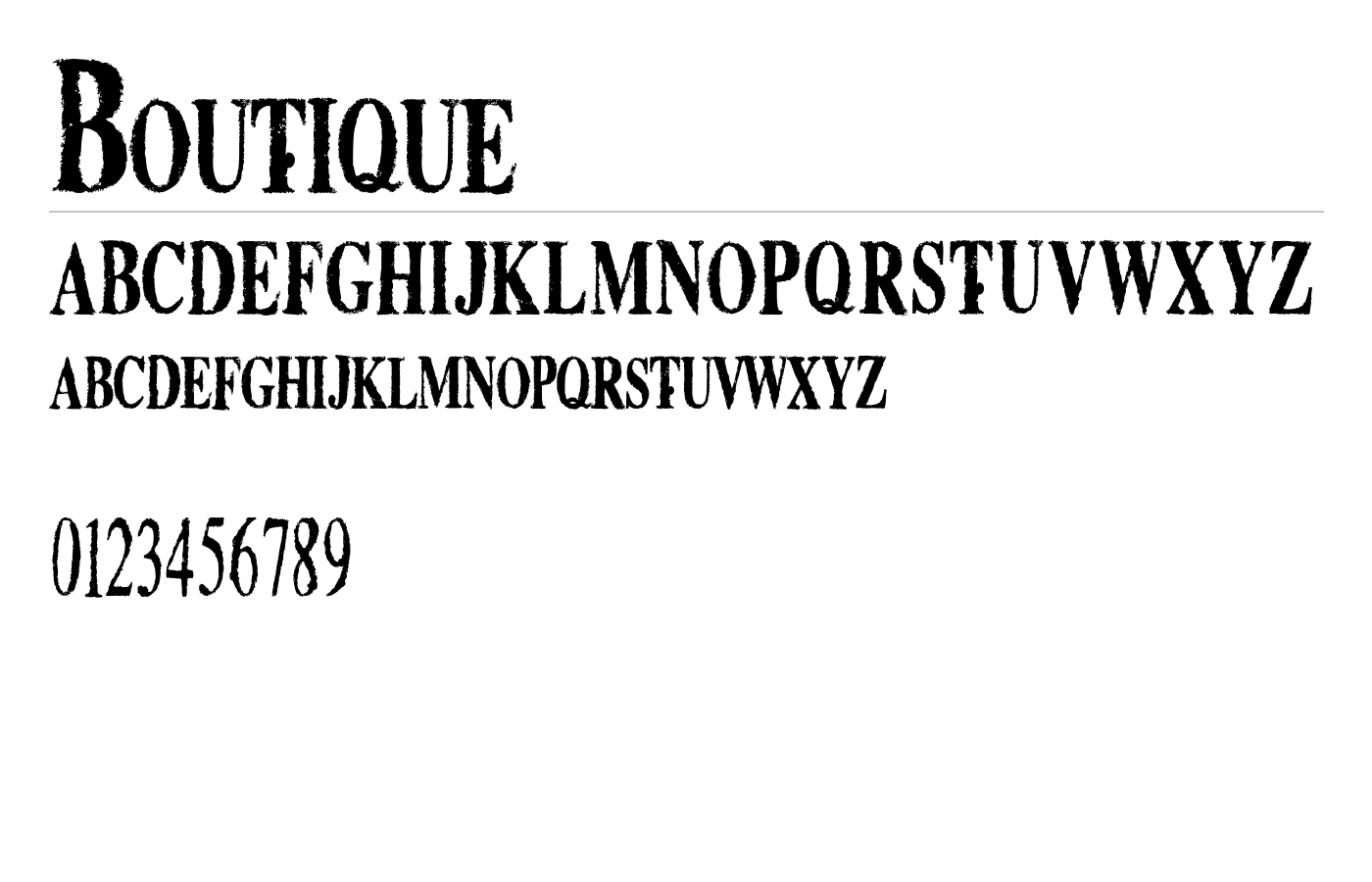
Boutique is a textured serif font that combines a vintage, hand-stamped look with strong, narrow letterforms and medium stroke contrast. Its rough edges and condensed style give it a unique, rustic charm ideal for creative branding, posters, and packaging that want a distinctive, artisanal feel. This font works best where an eye-catching, nostalgic aesthetic is desired without sacrificing legibility.
Boutique Font
About Boutique Font
| Font family | Boutique Font |
| Designer | Fiona Clarke 'Dead Duckling' |